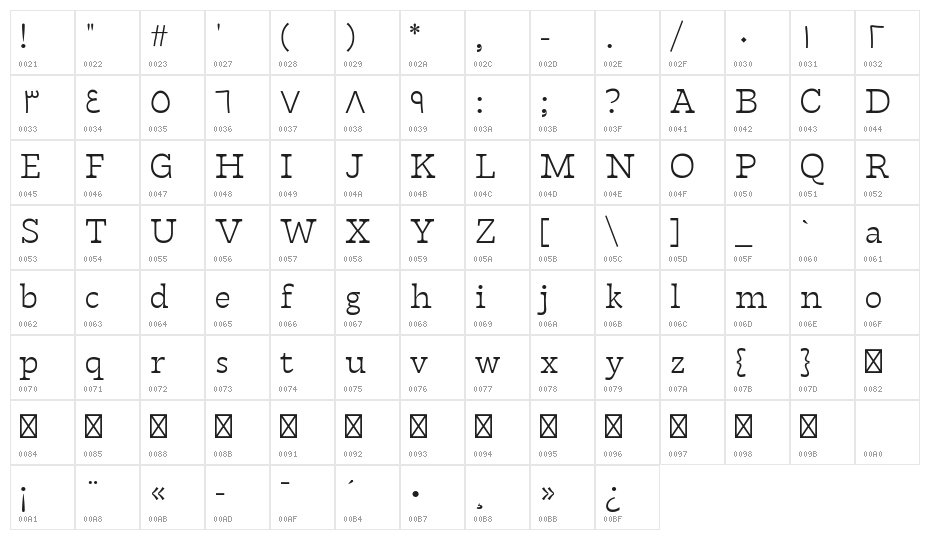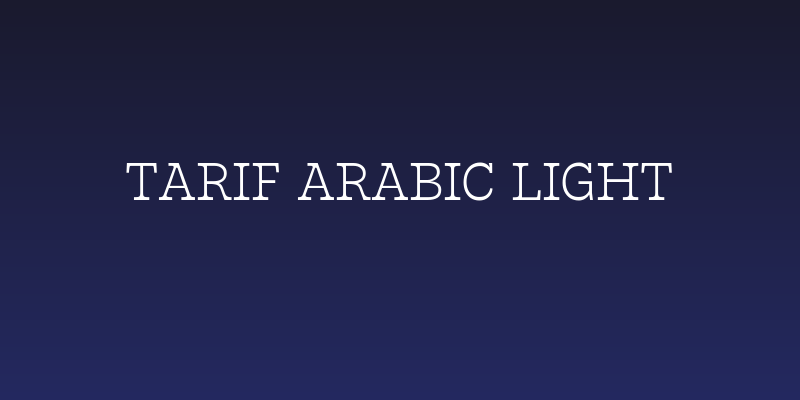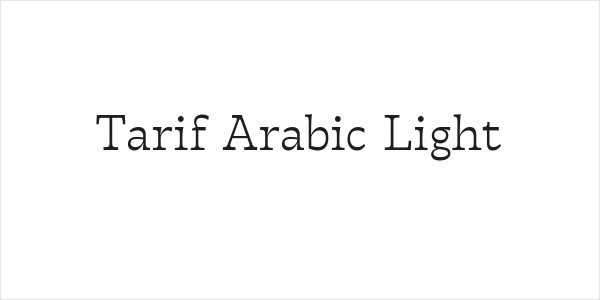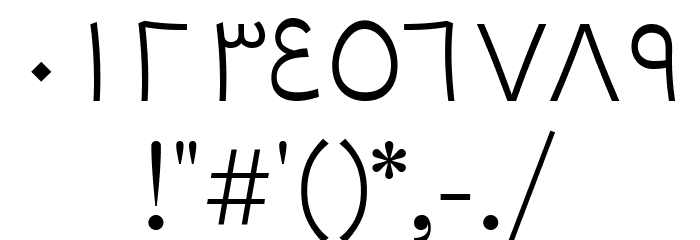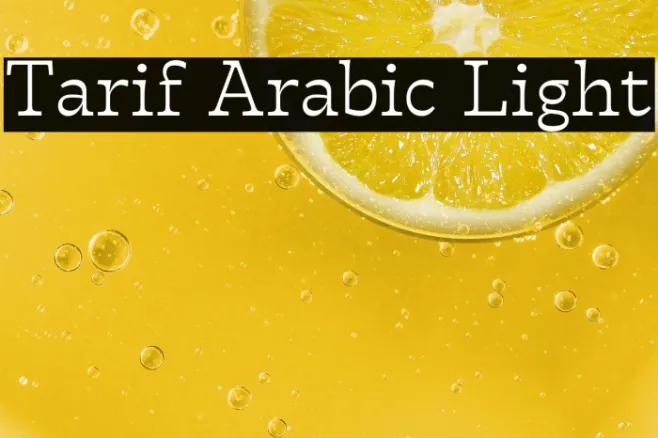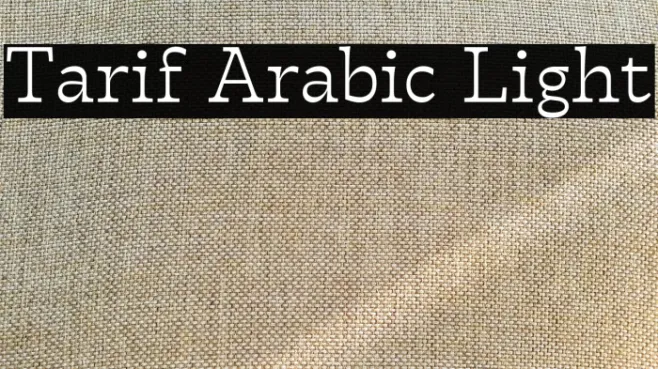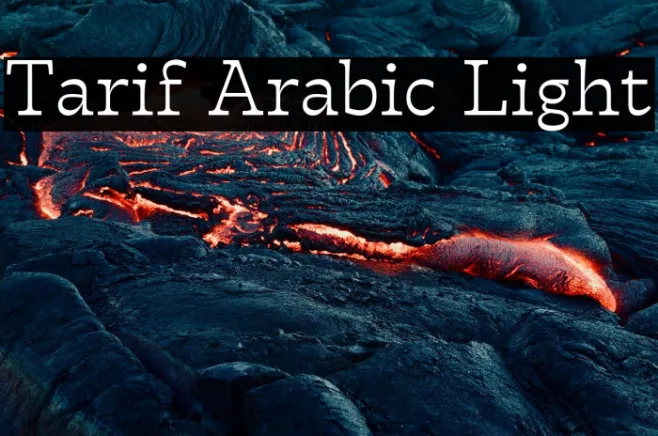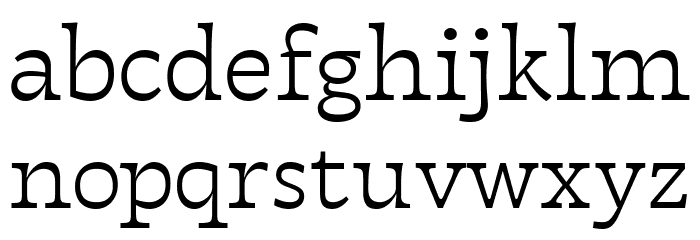
Tarif Arabic Light Font
Tarif Arabic Light Description
This font features a clean and modern design with a touch of elegance. The characters are well-proportioned, with a slight curvature that adds a subtle softness to the overall appearance. The uppercase letters are bold and commanding, while the lowercase letters maintain a consistent flow, making it versatile for various applications. The numerals are clear and distinct, ensuring readability. Special characters are thoughtfully designed, complementing the overall aesthetic. The font's balance between modernity and classic elements makes it suitable for both digital and print media.